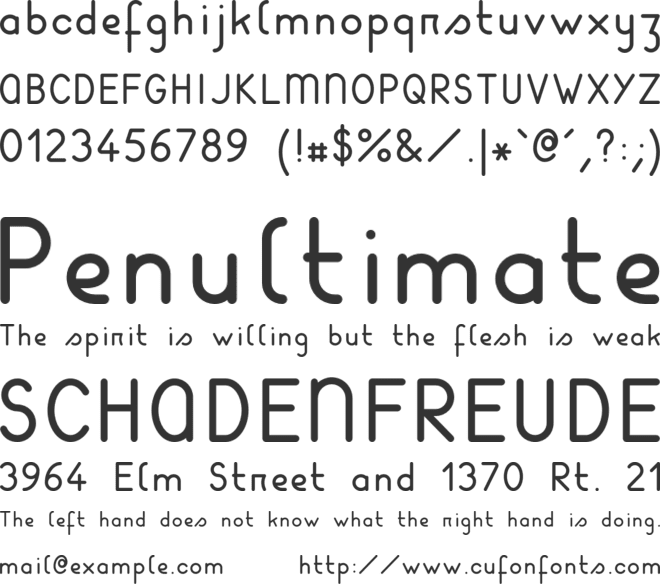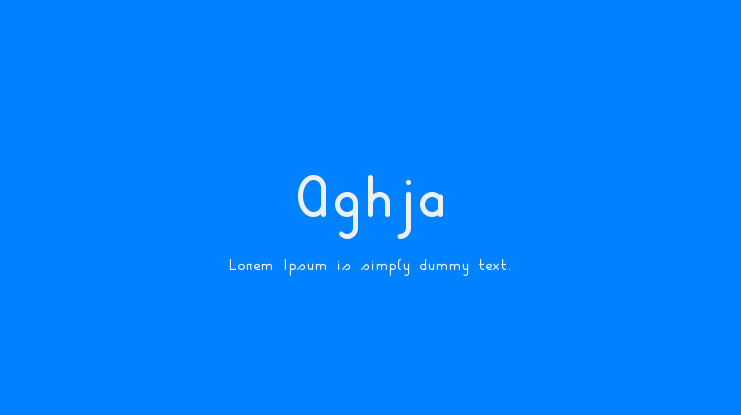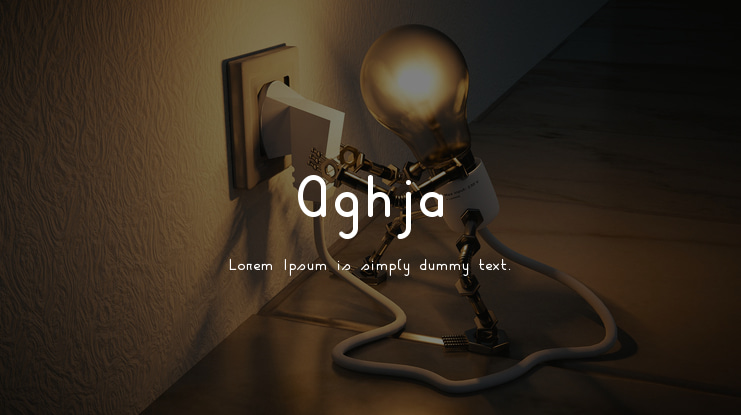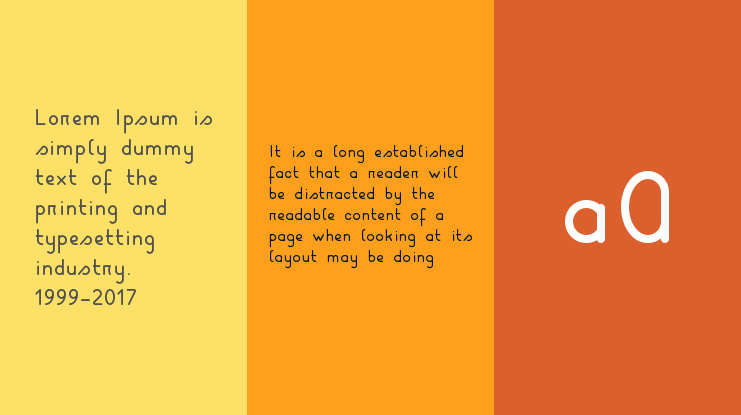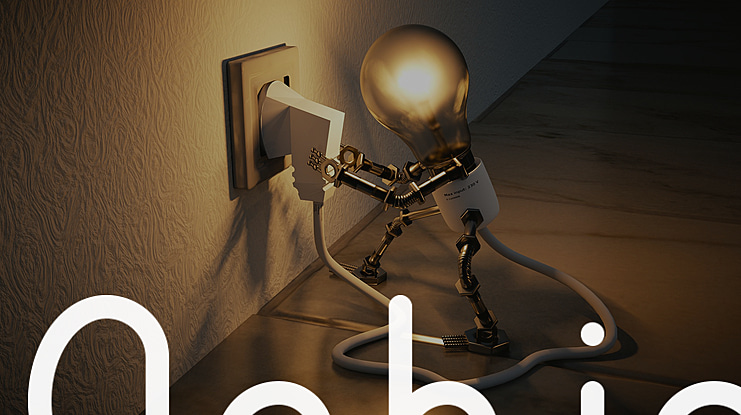
The mini-font "Aghja" is the demonstration of a technical architecture new in LCG script. The font creators using FontForge will find the principles of the "Pecita Style" in version 5 (coming soon), including: - Function ExpandStroke of FontForge (Pecita V4) - Contextual Alternates = calt (Pecita V4); - Glyphs decomposition = ccmp (newness Pecita V5).